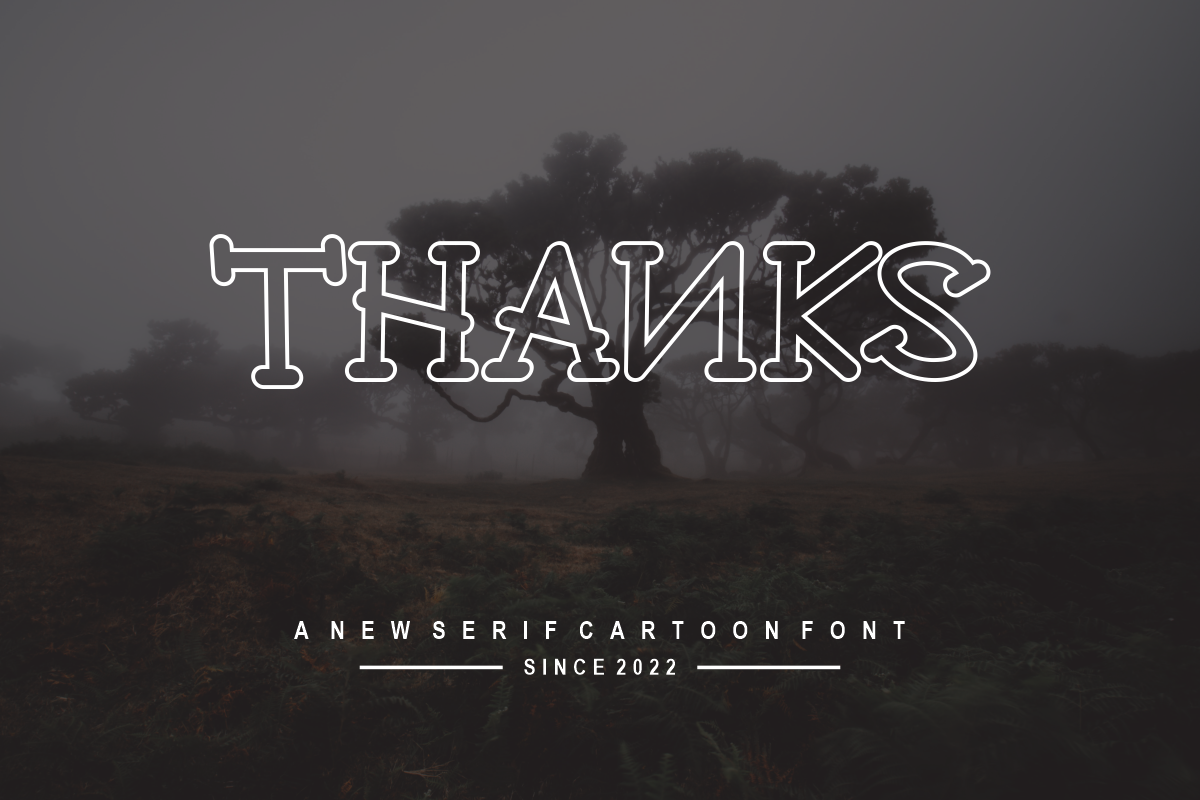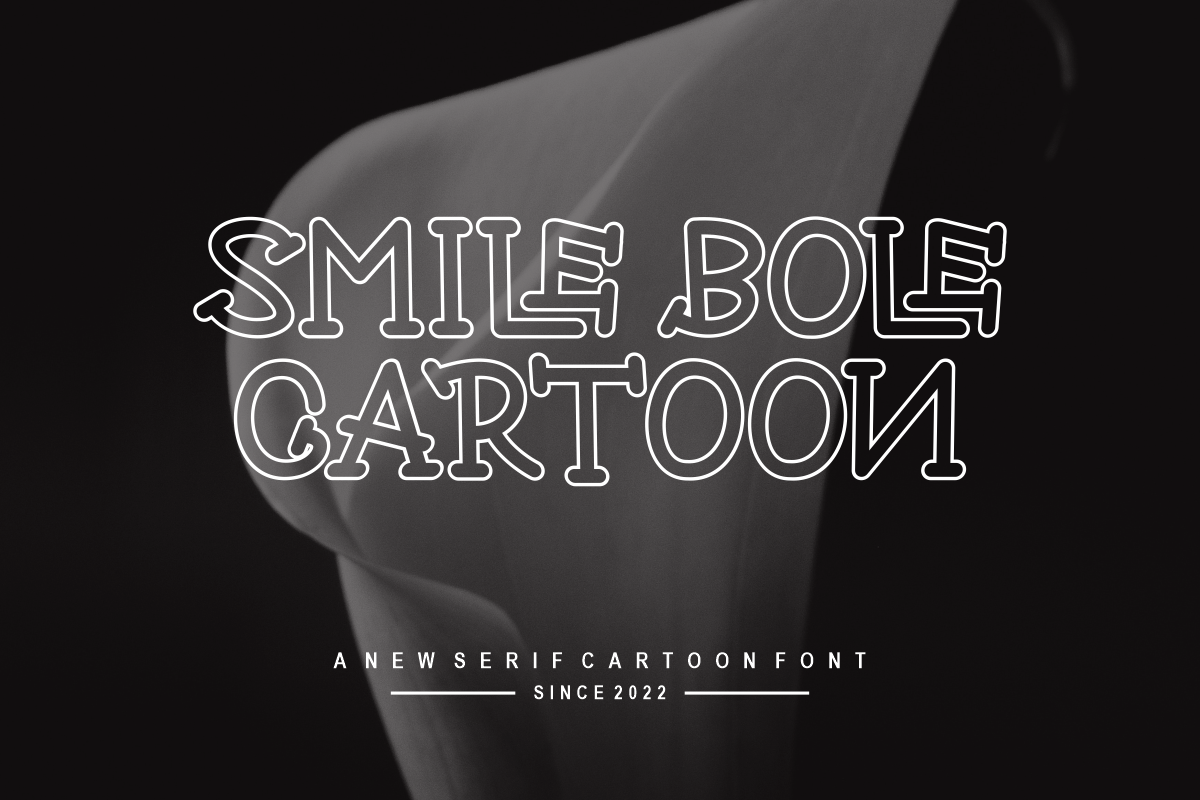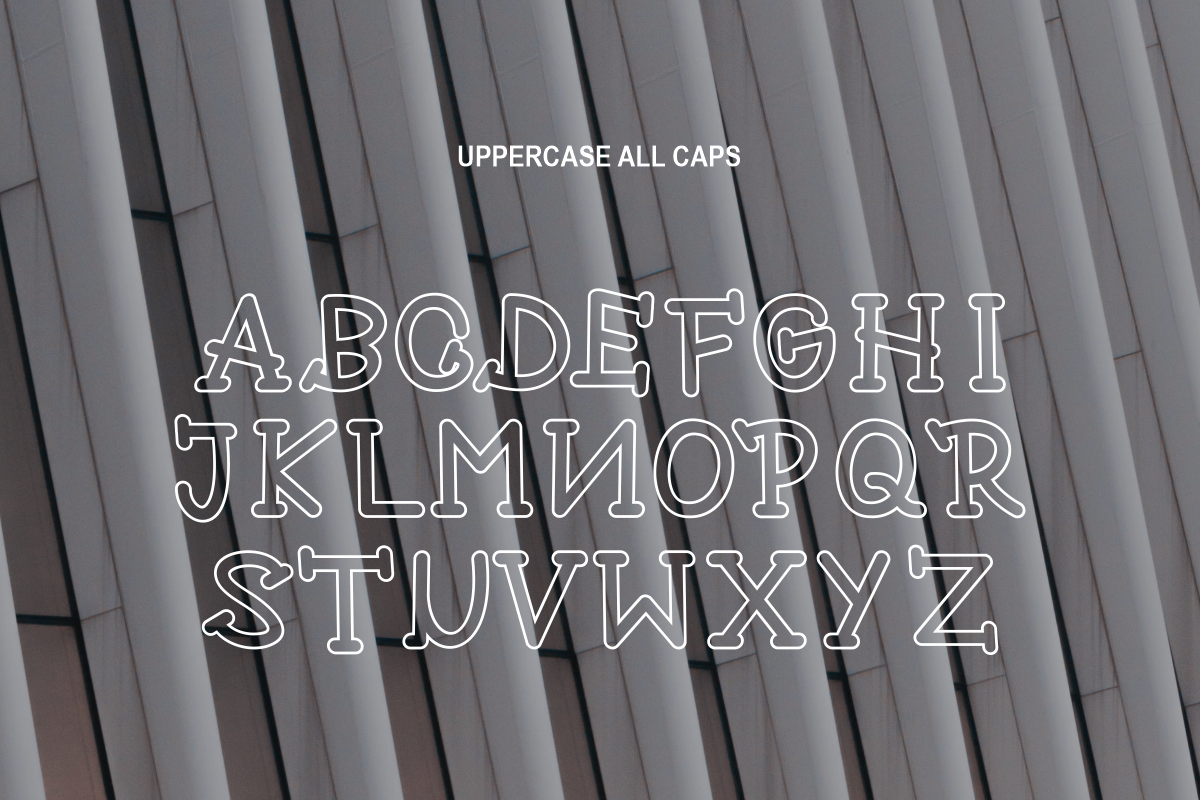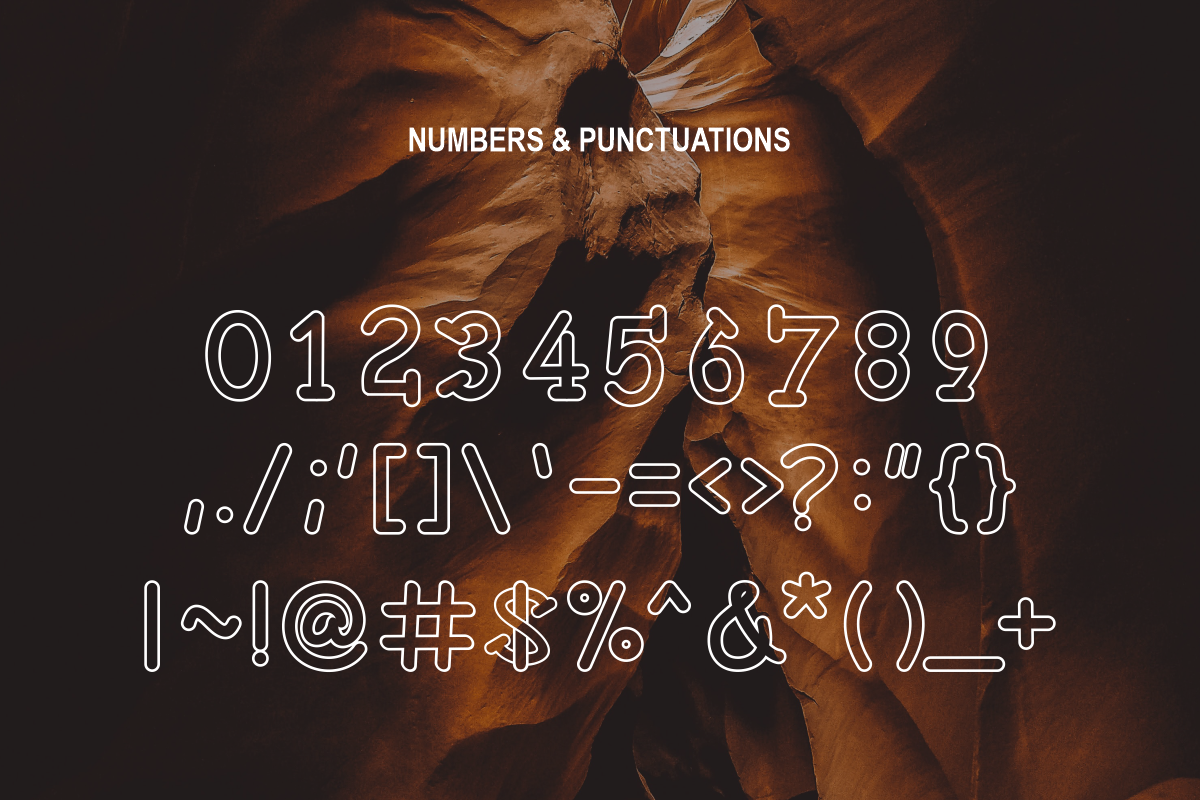
SmileBole
SmileBole is a sweet and elegant typeface. It retains a classy calligraphic influence while feeling contemporary and fresh. Fall in love with it and take your project to the highest level!